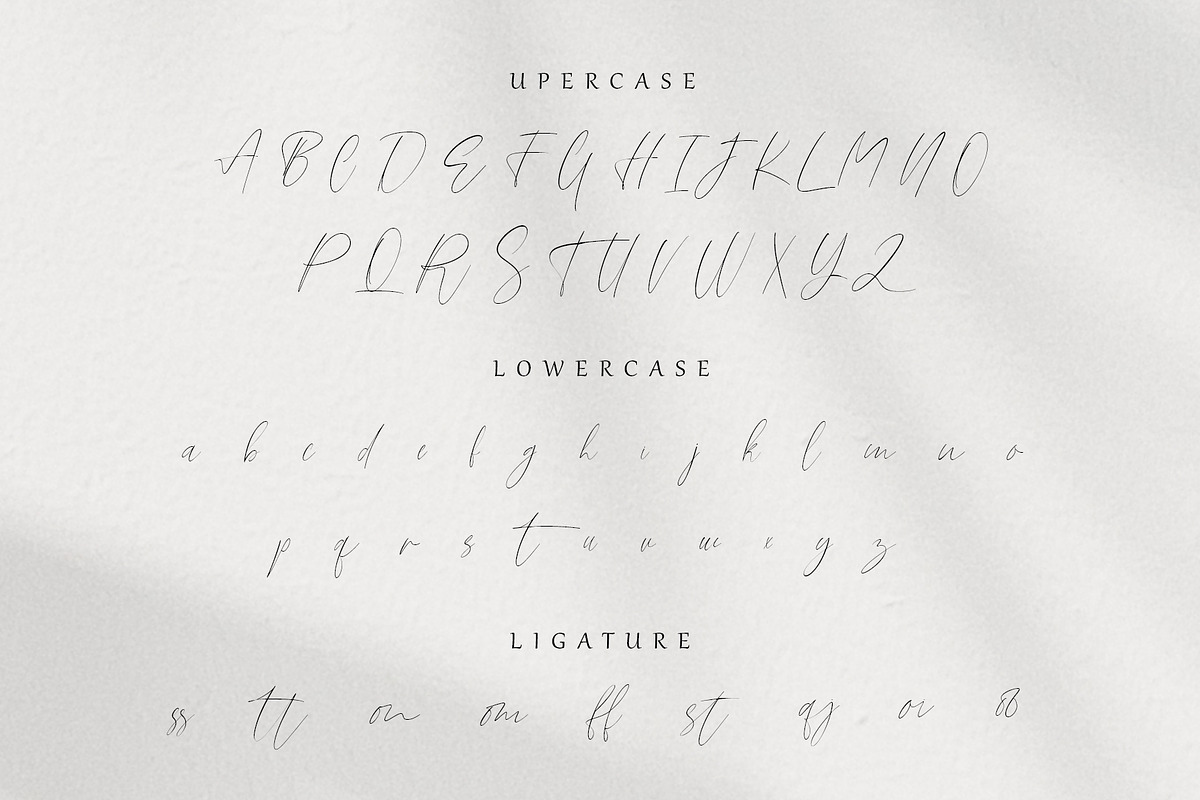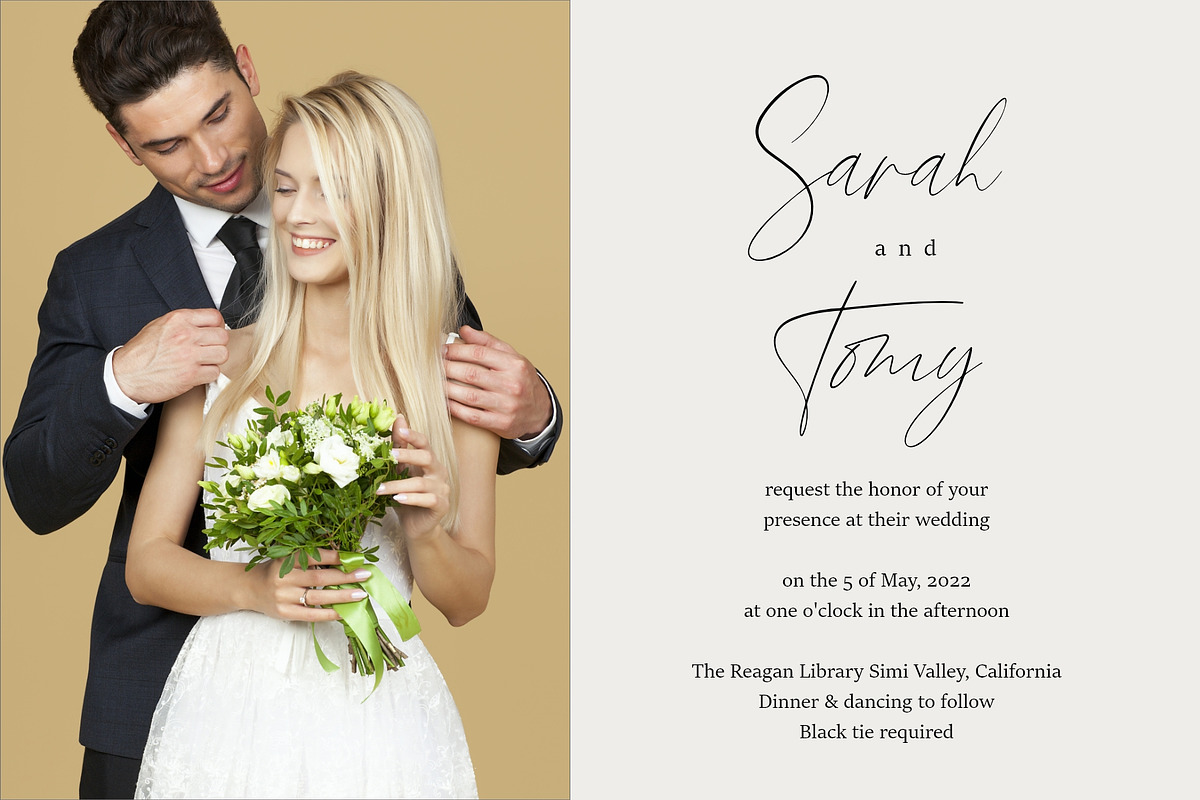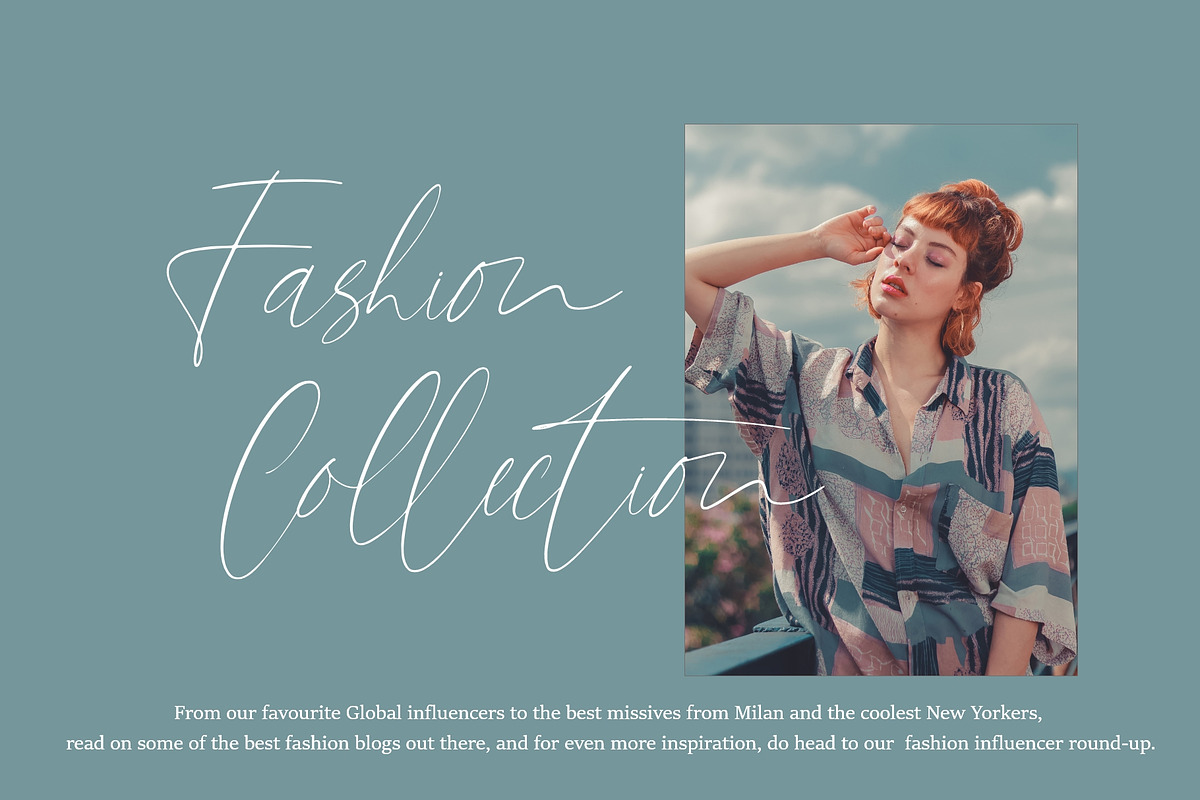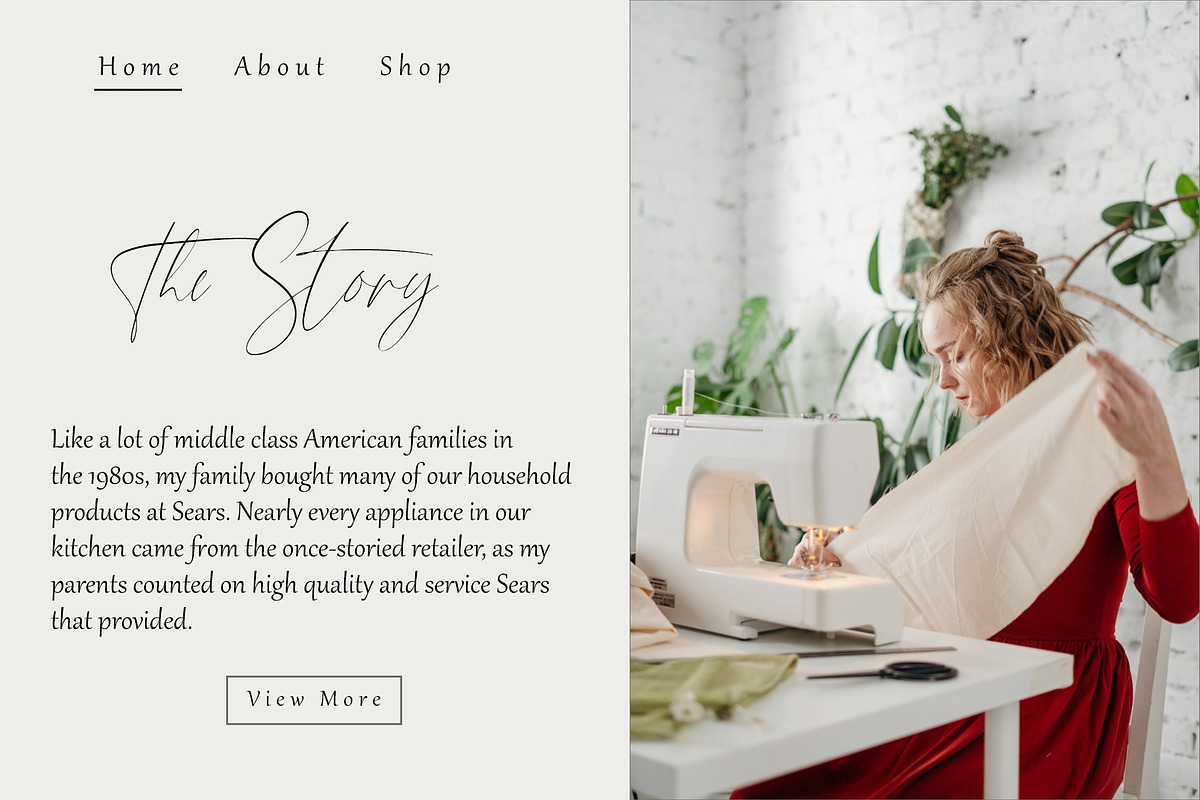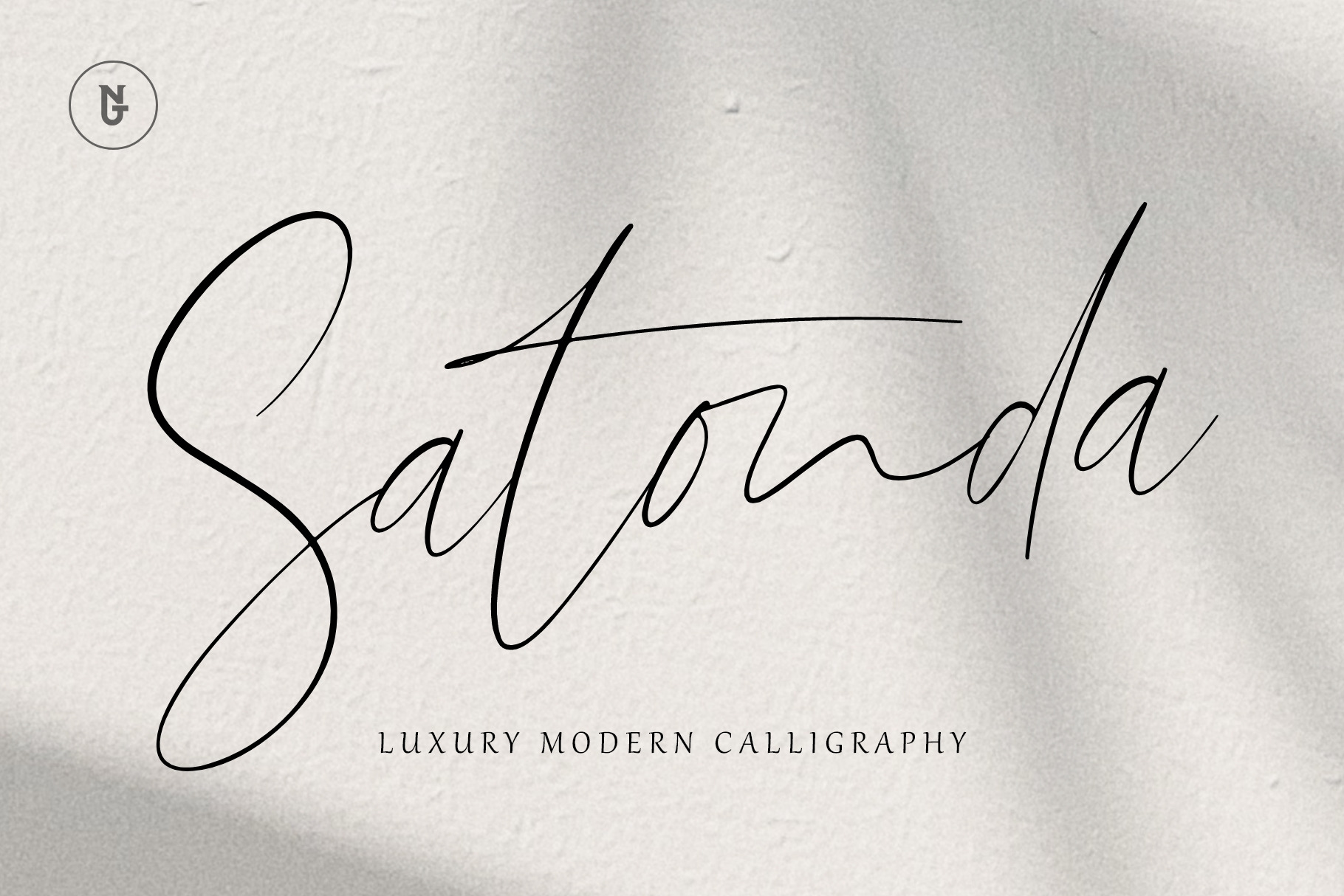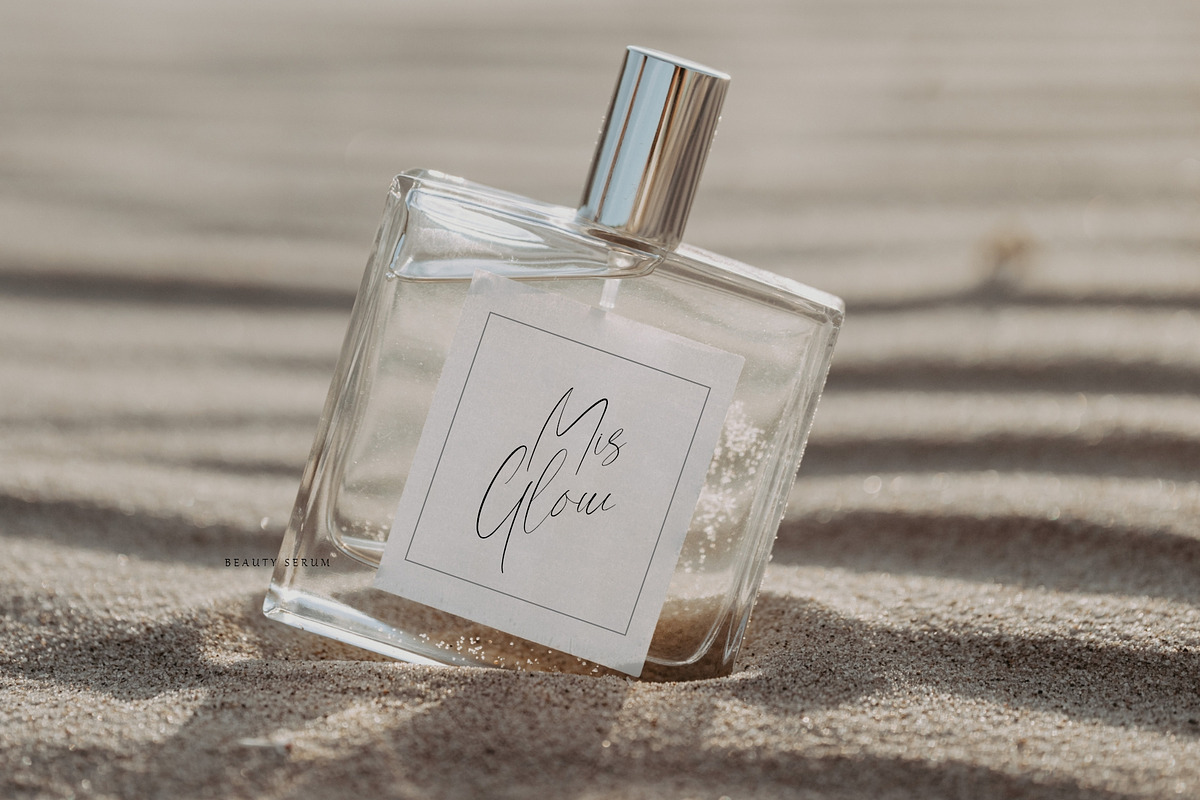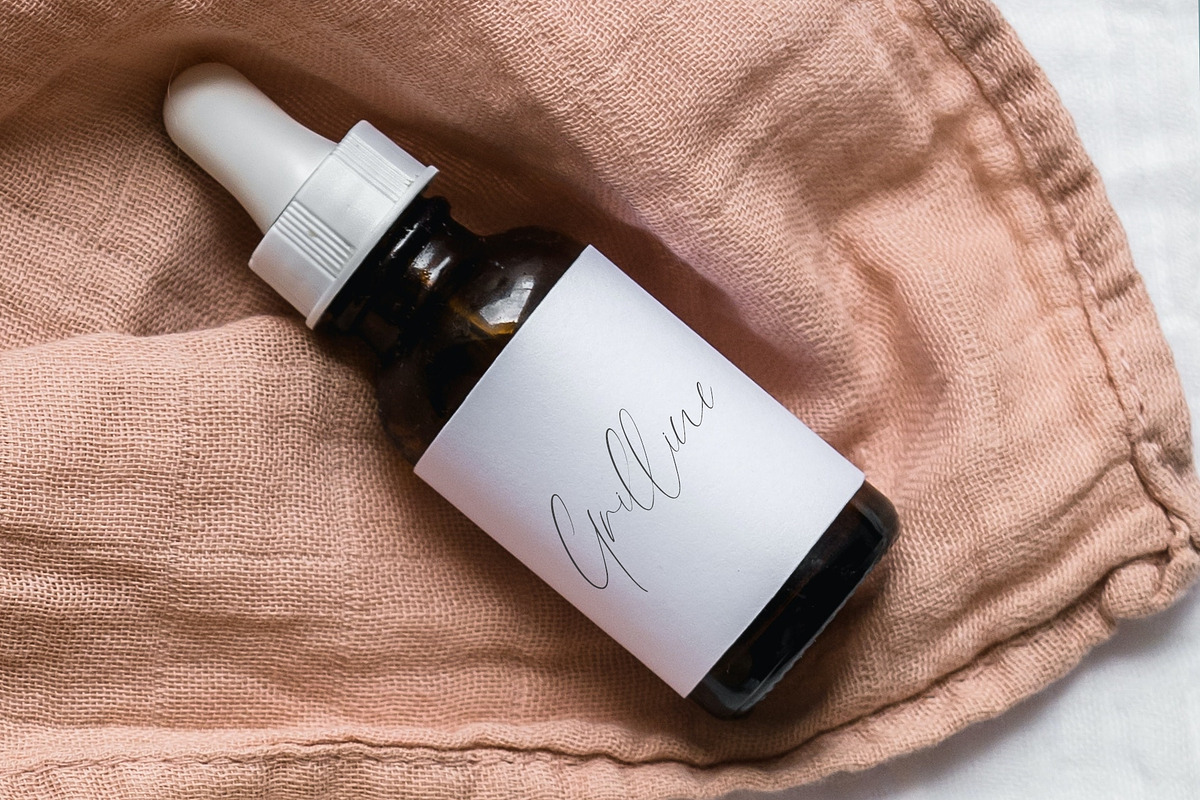
Beautiful Signature - Satonda Font
Satonda Casual modern signature font, The script includes a set of uppercase characters, numbers, symbols, two sets of lowercase letters, and is supported by ligatures.
Satonda is suitable for web and print and can be used in a variety of feminine design projects. Made with all my heart for all of you.